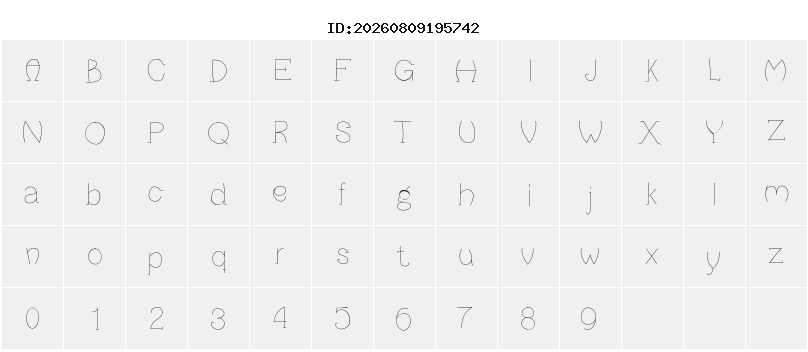
• Font Name: Pancake
About Pancake.ttf
Pancake.ttf is a modern, elegant sans-serif font designed for ultimate readability and visual harmony. Perfect for branding, headlines, web design, and print materials.